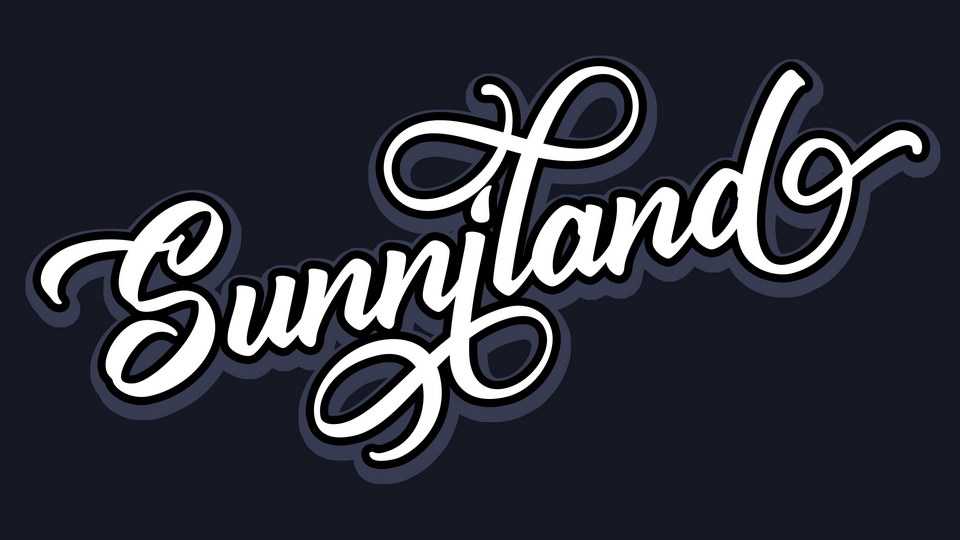
Download Sunniland font, a sweet, flowing and unique handwritten typeface. Sunniland features a varying baseline, smooth lines, gorgeous glyphs and stunning alternates.
Designer: Vunira Design